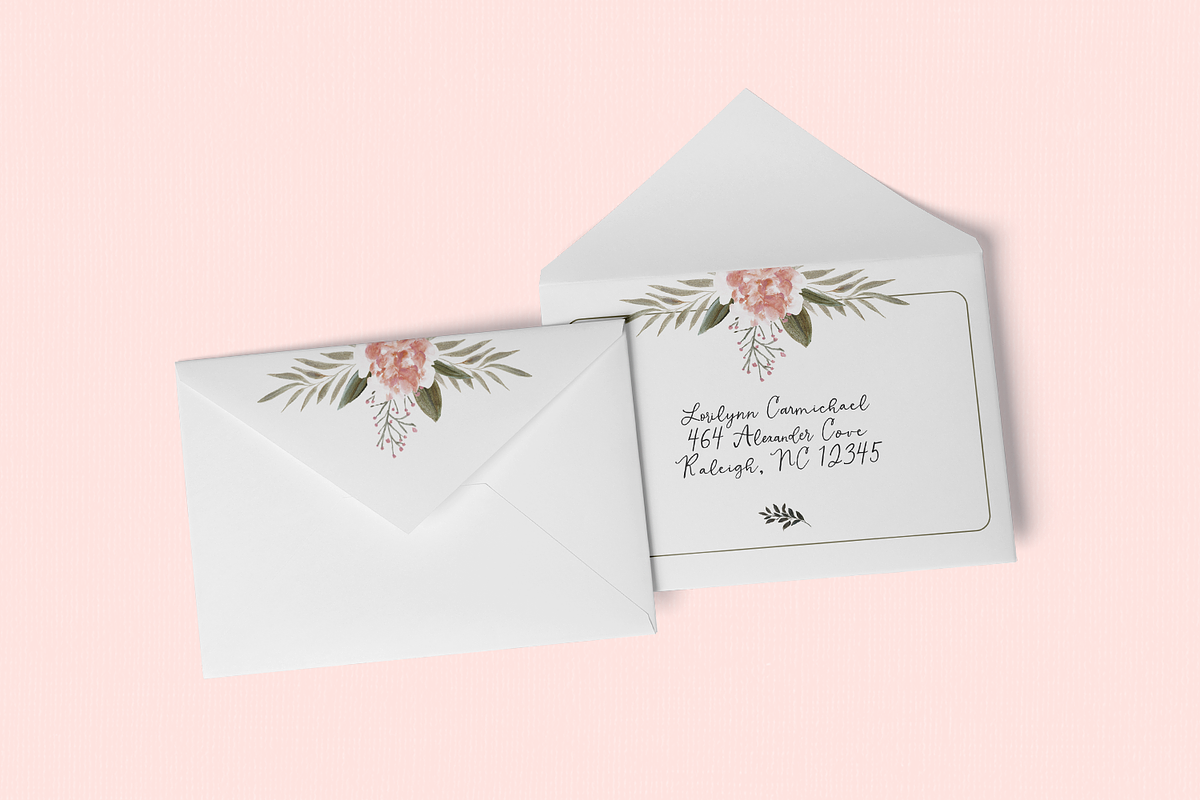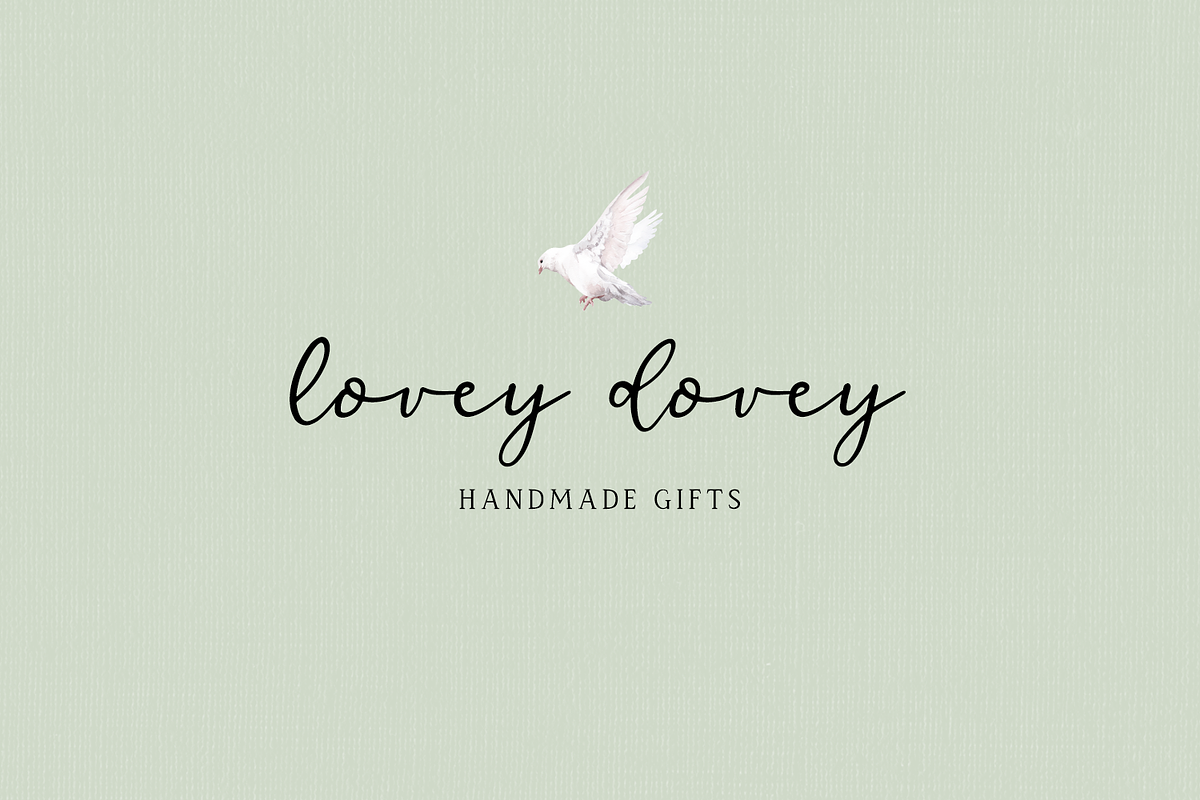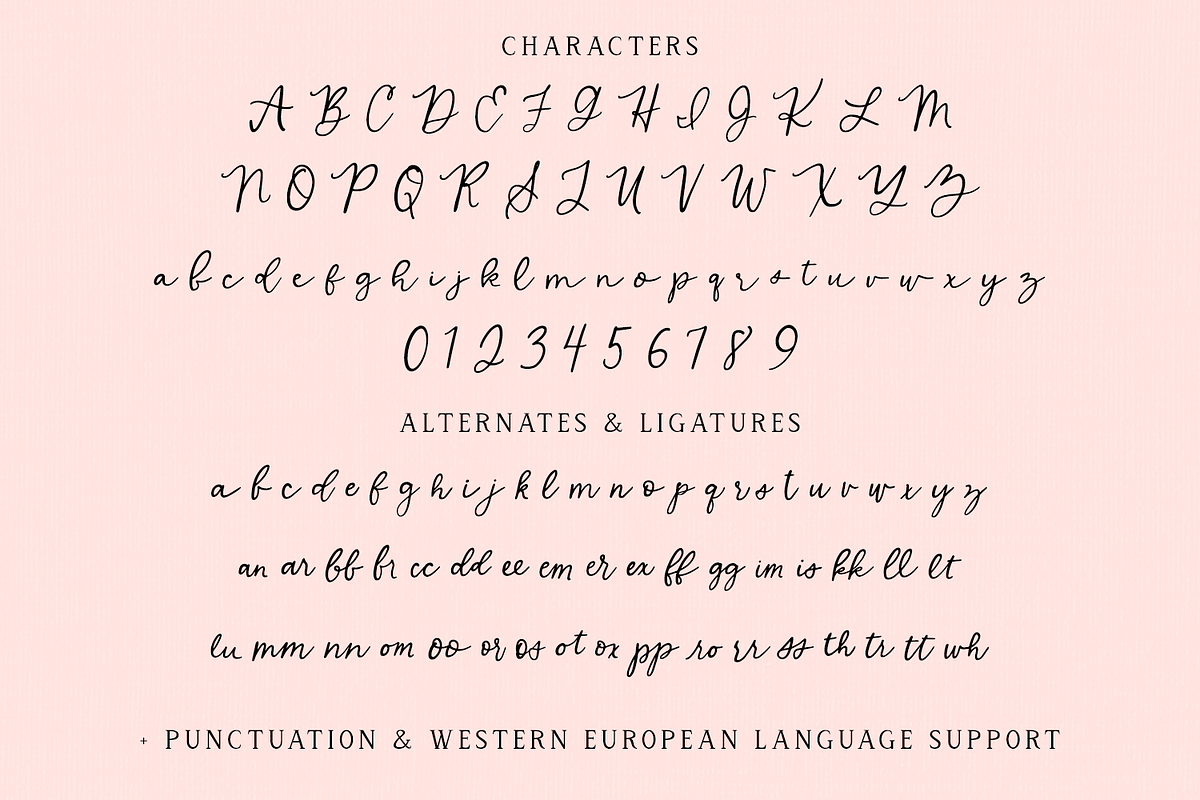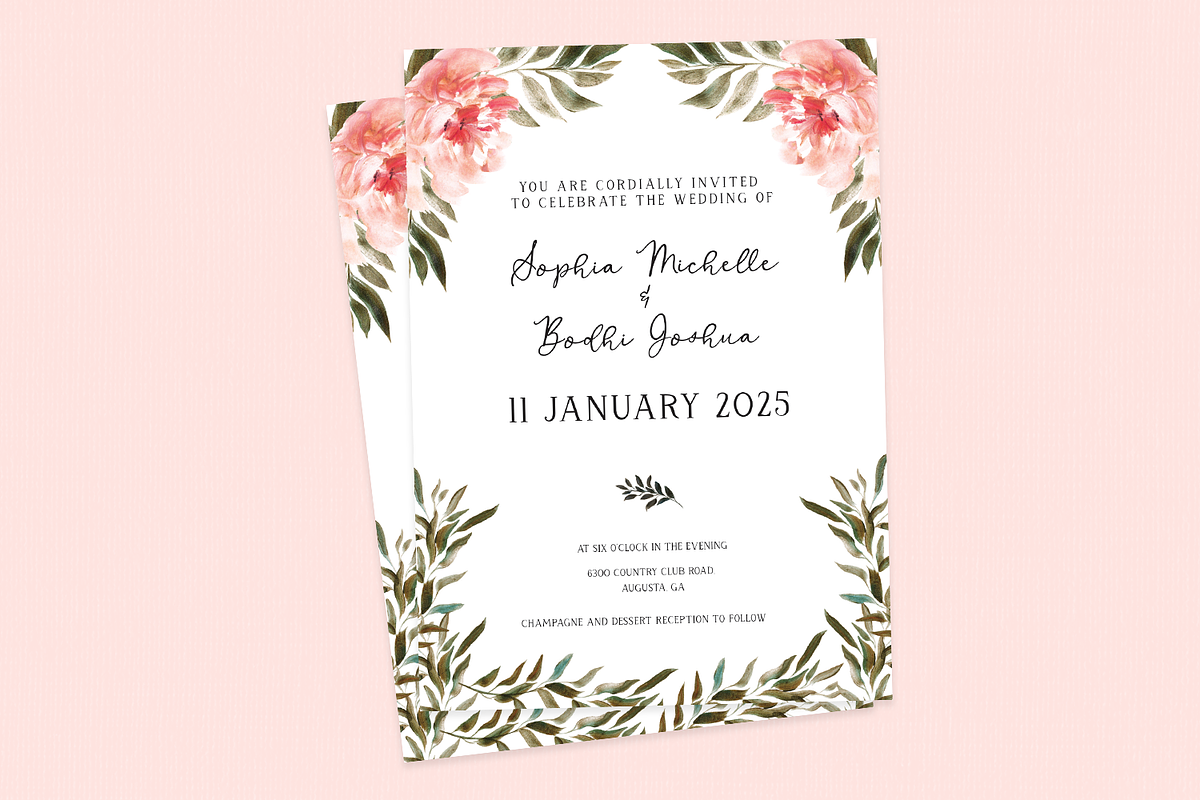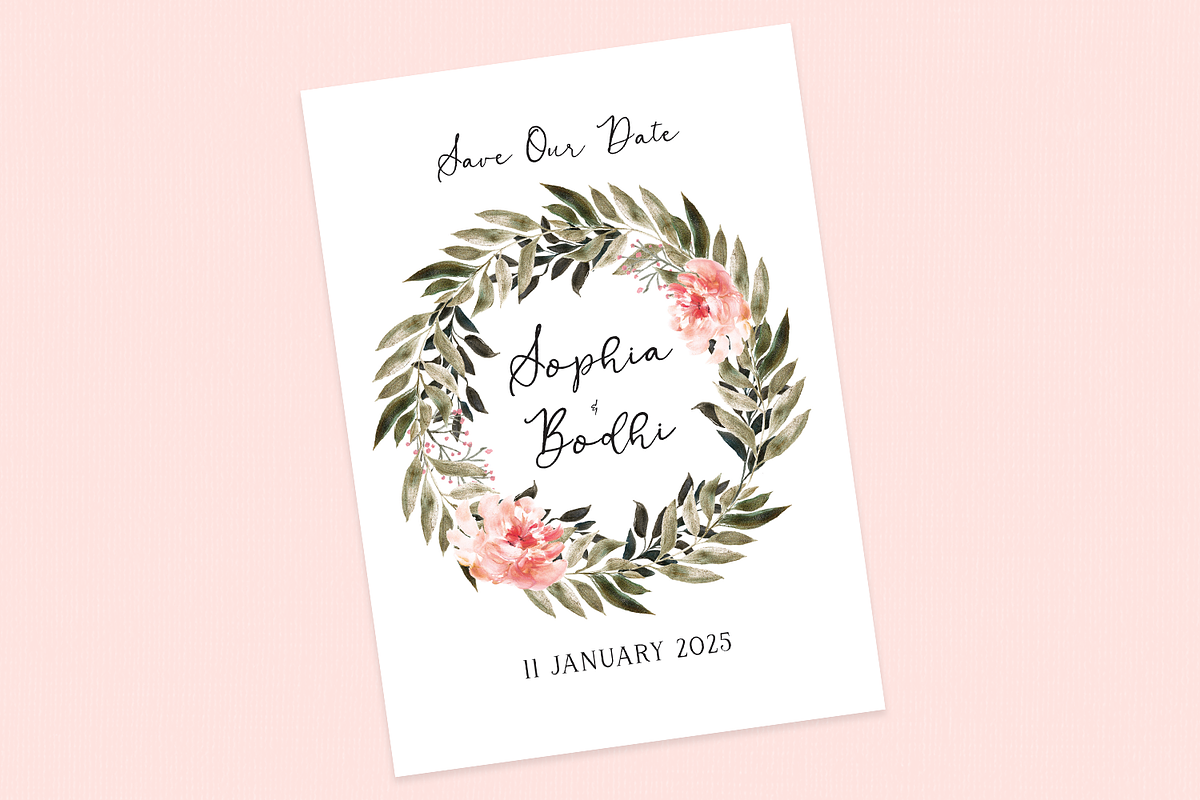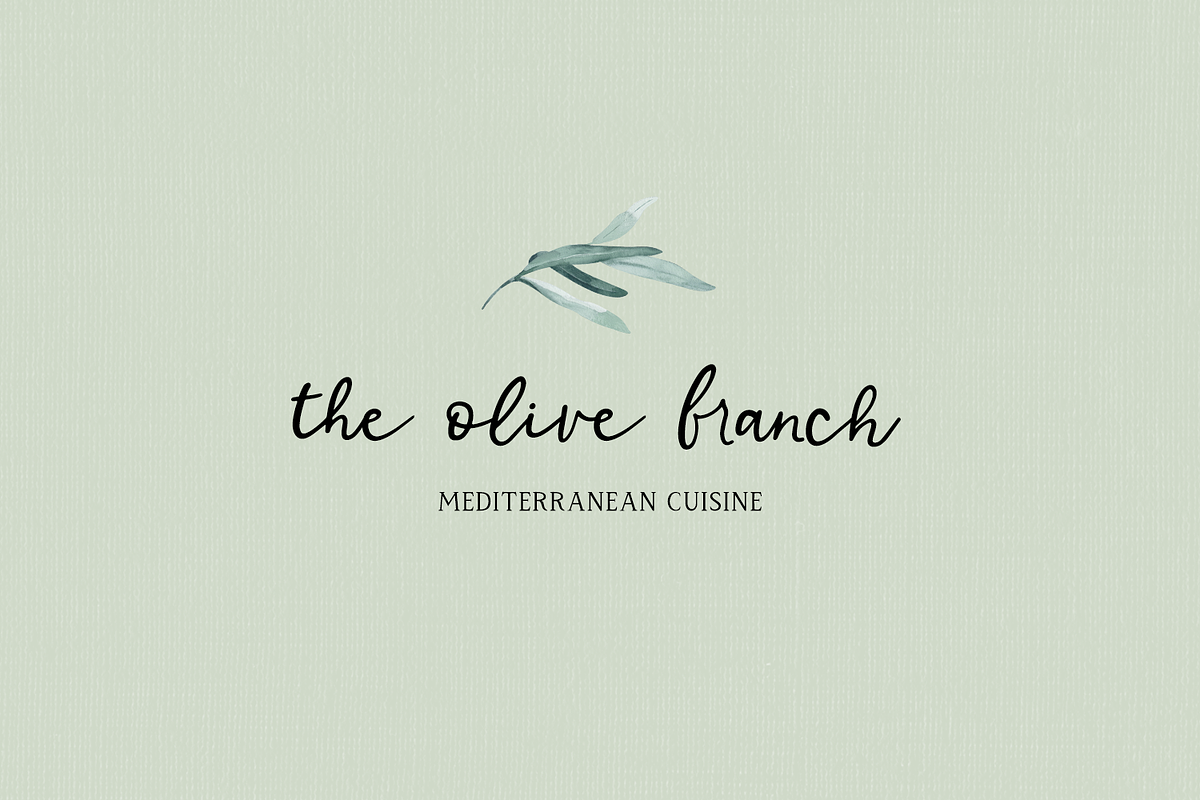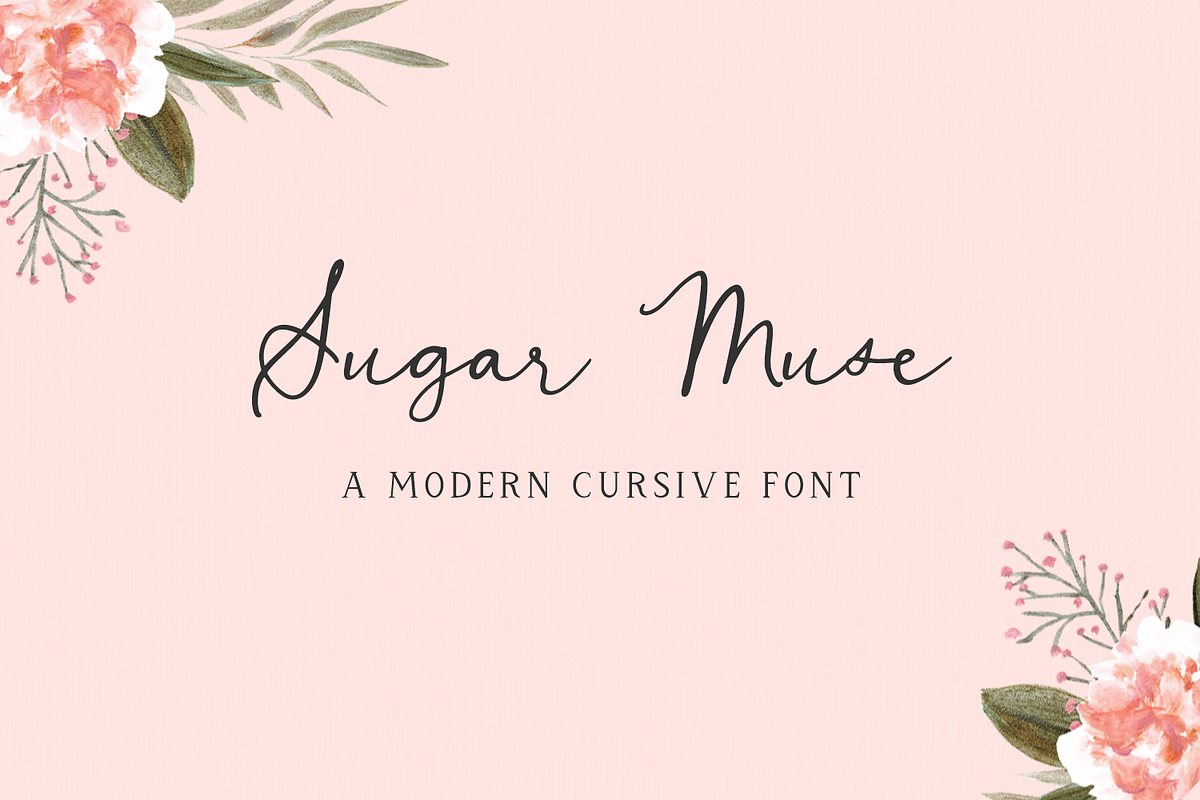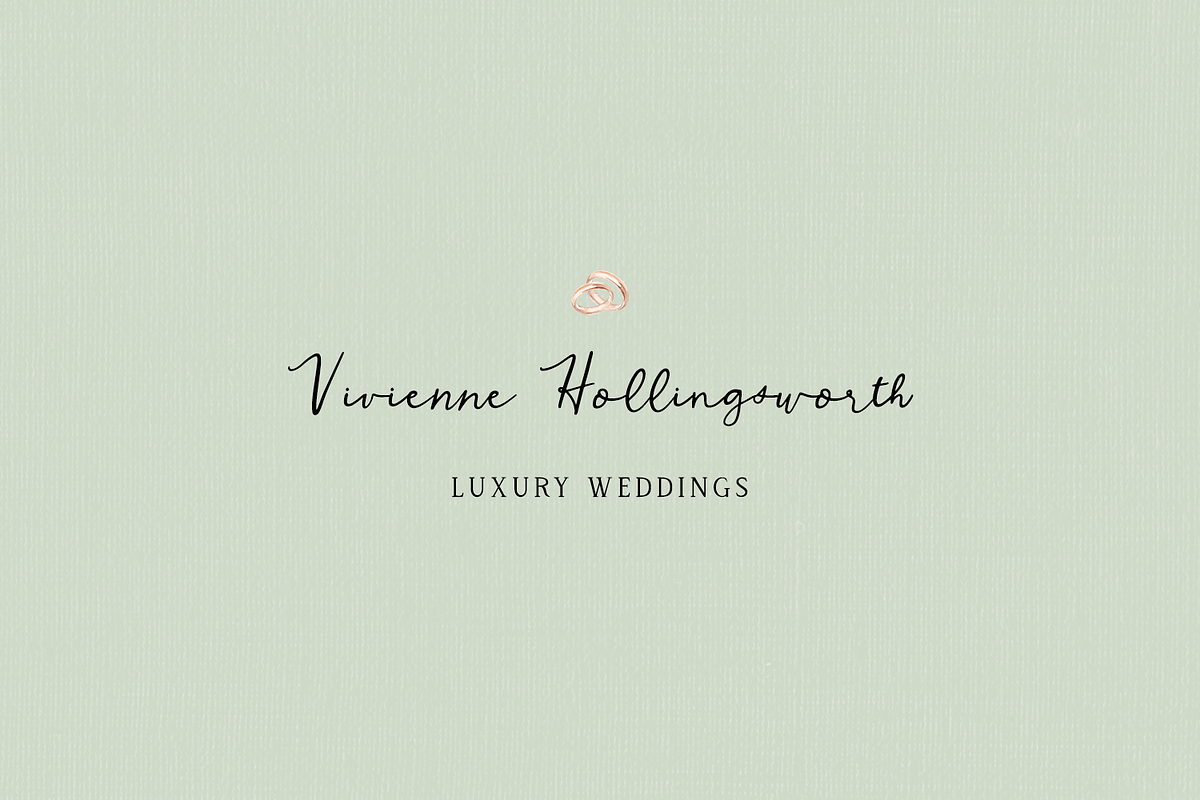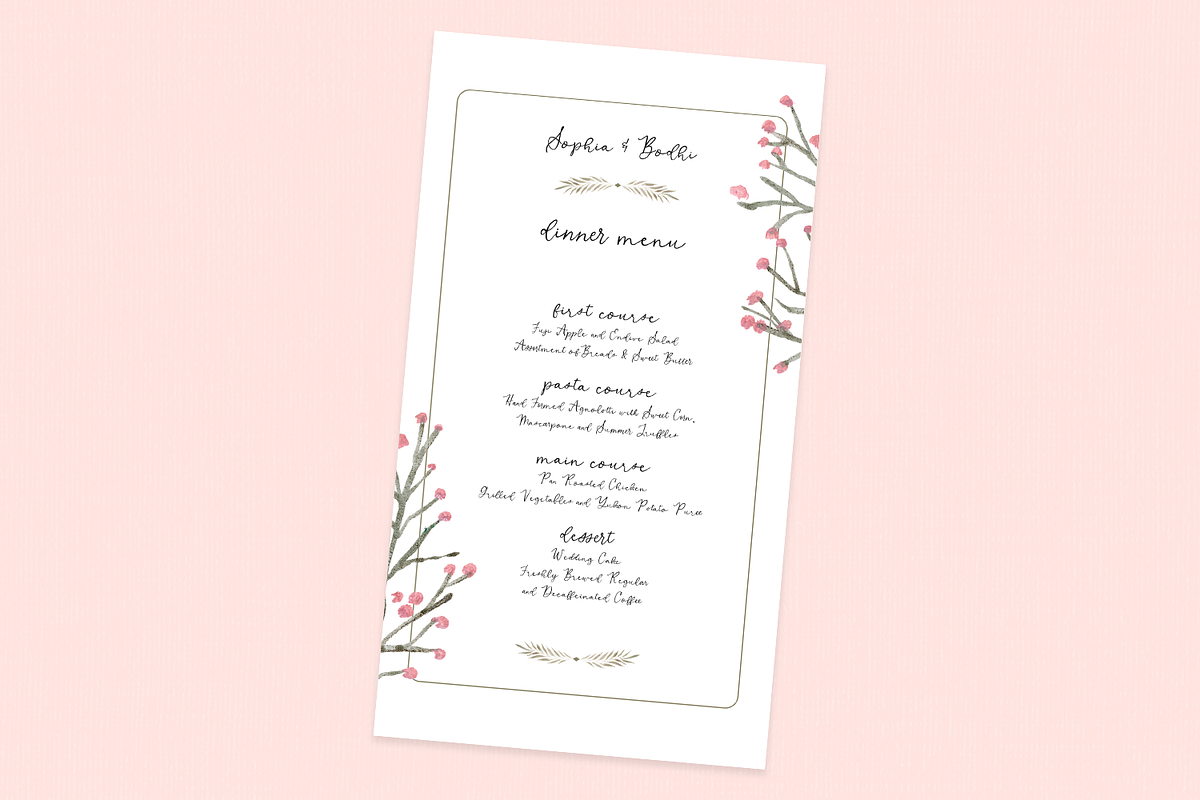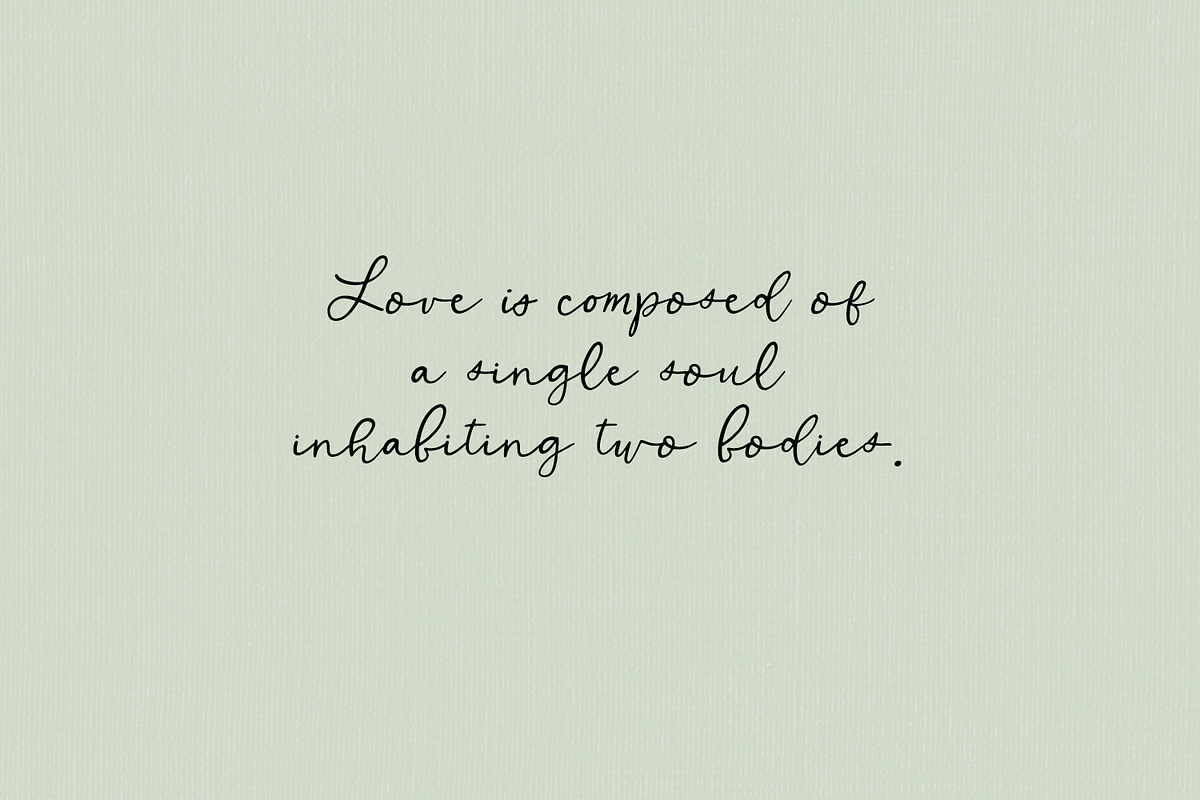
Sugar Muse Script
Introducing Sugar Muse, a handwritten cursive font. Sugar Muse is perfect for wedding invitations, greeting cards, social media posts, marketing materials, logos & branding, or quote graphics.
Sugar Muse includes:
- upper + lowercase characters A-Z and a-z
- numbers 0-9
- punctuation
- 26 alternates - lowercase a-z
- 34 ligatures - an, ar, bb, br, cc, dd, ee, em, er, ex, ff, gg, im, is, kk, ll, lt, lu, mm, nn, om, oo, or, os, ot, ox, pp, ro, rr, ss, th, tr, tt, wh
- Western European Language Support